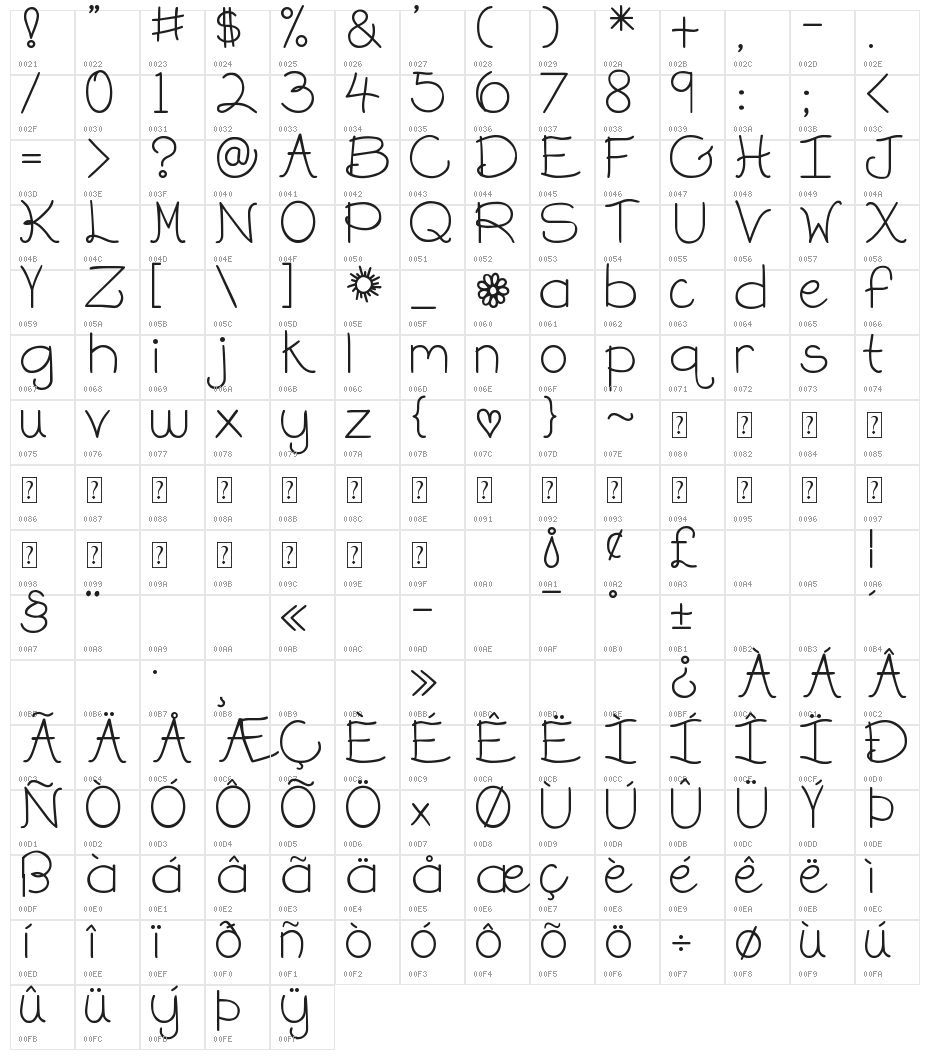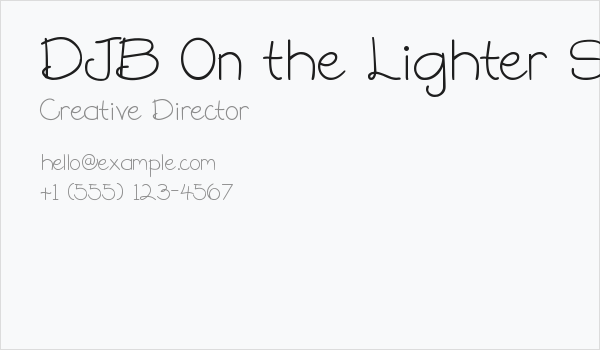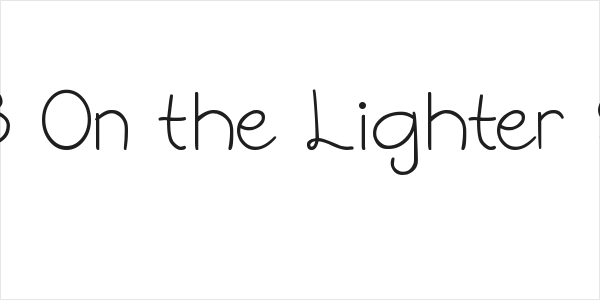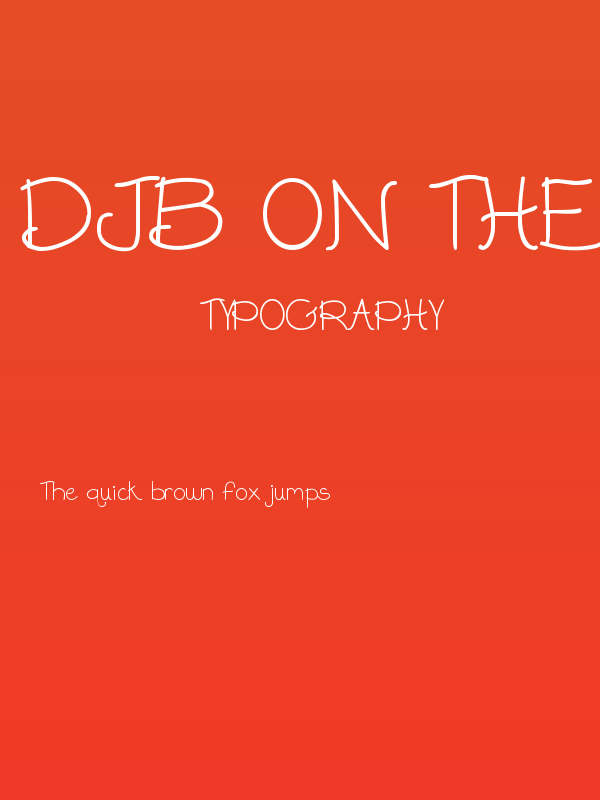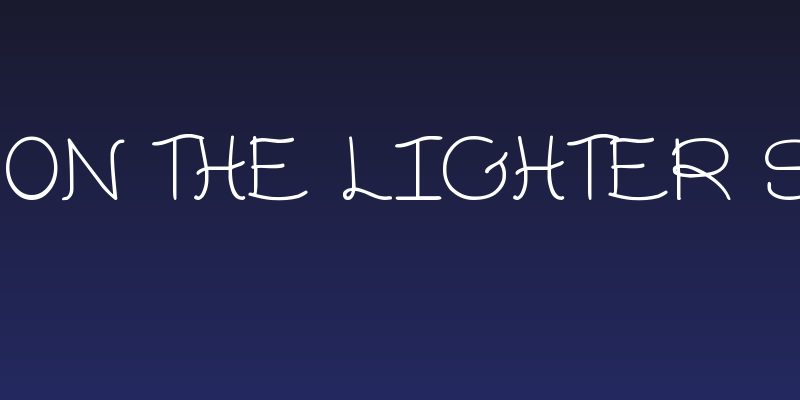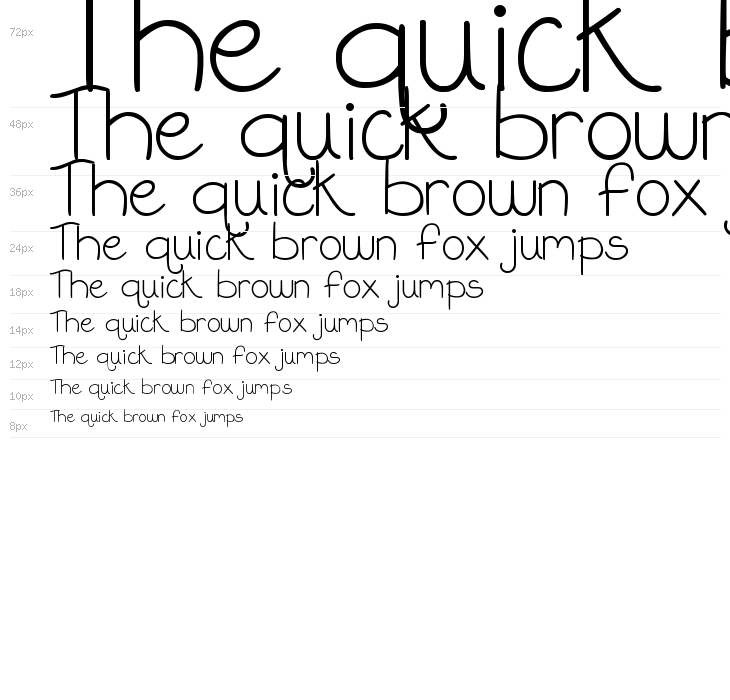
DJB On the Lighter Side Font
DJB On the Lighter Side Description
This font features a playful and whimsical handwritten style, characterized by its rounded and smooth letterforms. The strokes are consistent in width, giving it a uniform appearance, while the slight irregularities in the curves add a personal touch. The uppercase and lowercase letters maintain a friendly and approachable look, making it suitable for casual and informal designs. The numerals and special characters are crafted with the same playful aesthetic, ensuring a cohesive look across all text elements. Its simplicity and charm make it versatile for various creative projects.
Overall StylePlayful
Use CaseHeadlines, Logos, Informal Text
Proposed ProjectsIdeal for children's books, greeting cards, playful branding, and informal invitations.